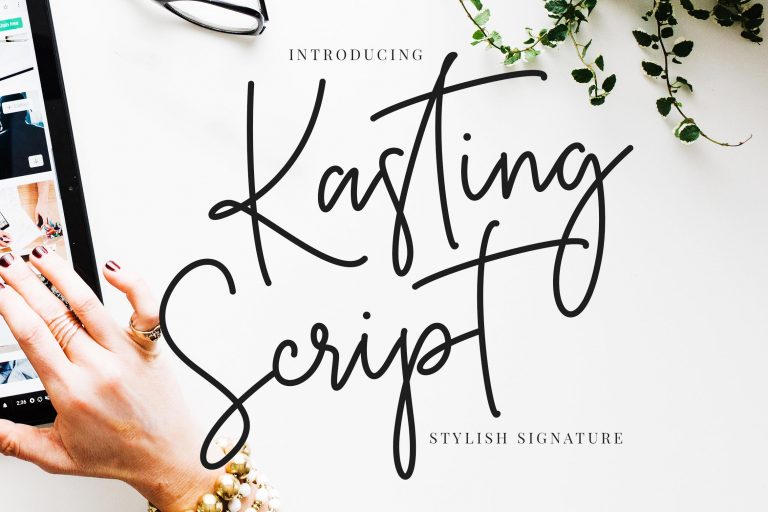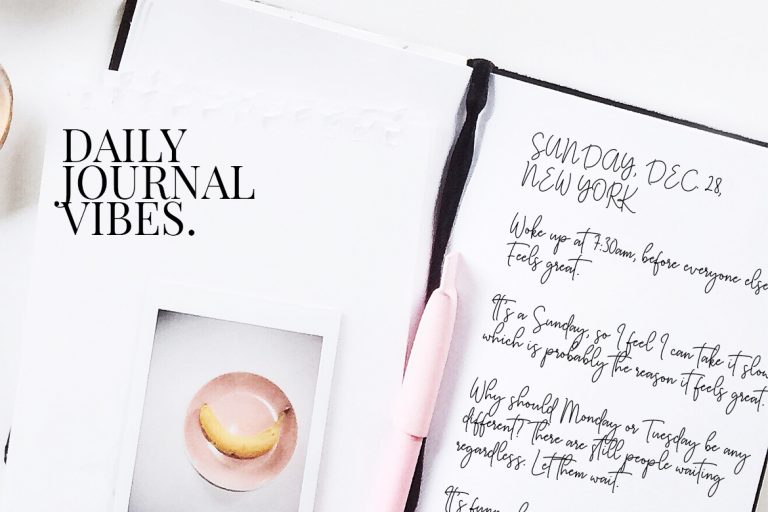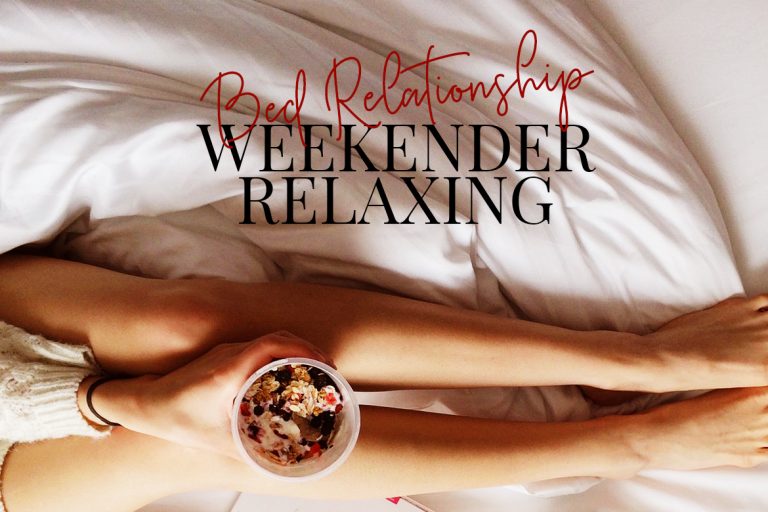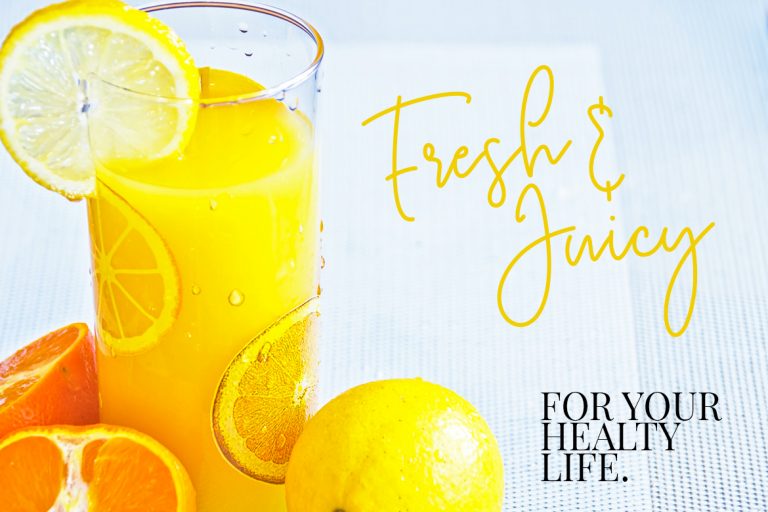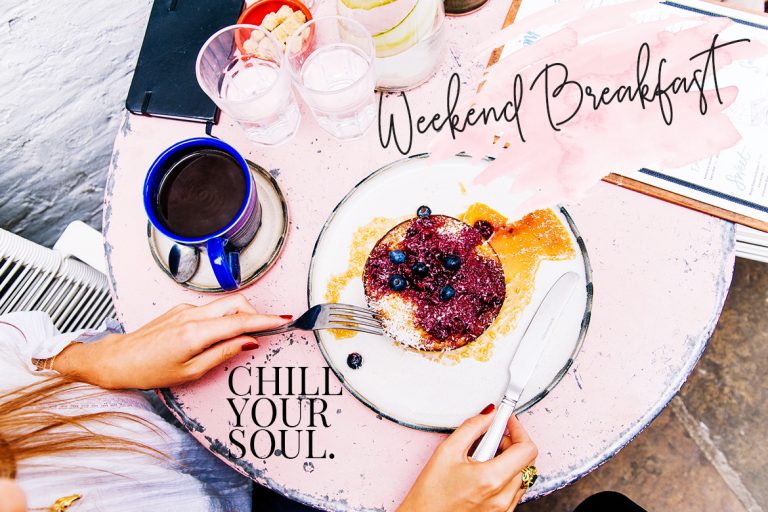
Kasting Script Signature is a stylish, fresh new handwritten signature script with a classy touch, it’s perfect for your latest project.
Kasting Script Signature is perfect for branding projects, logo, wedding designs, social media posts, advertisements, product packaging, product designs, label, photography, watermark, invitation, stationery and any projects that need handwriting taste.
Kasting Script Signature